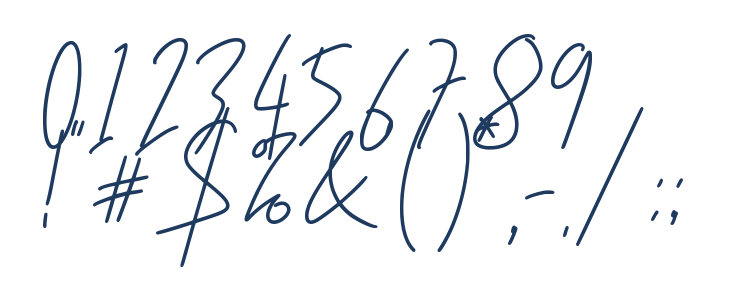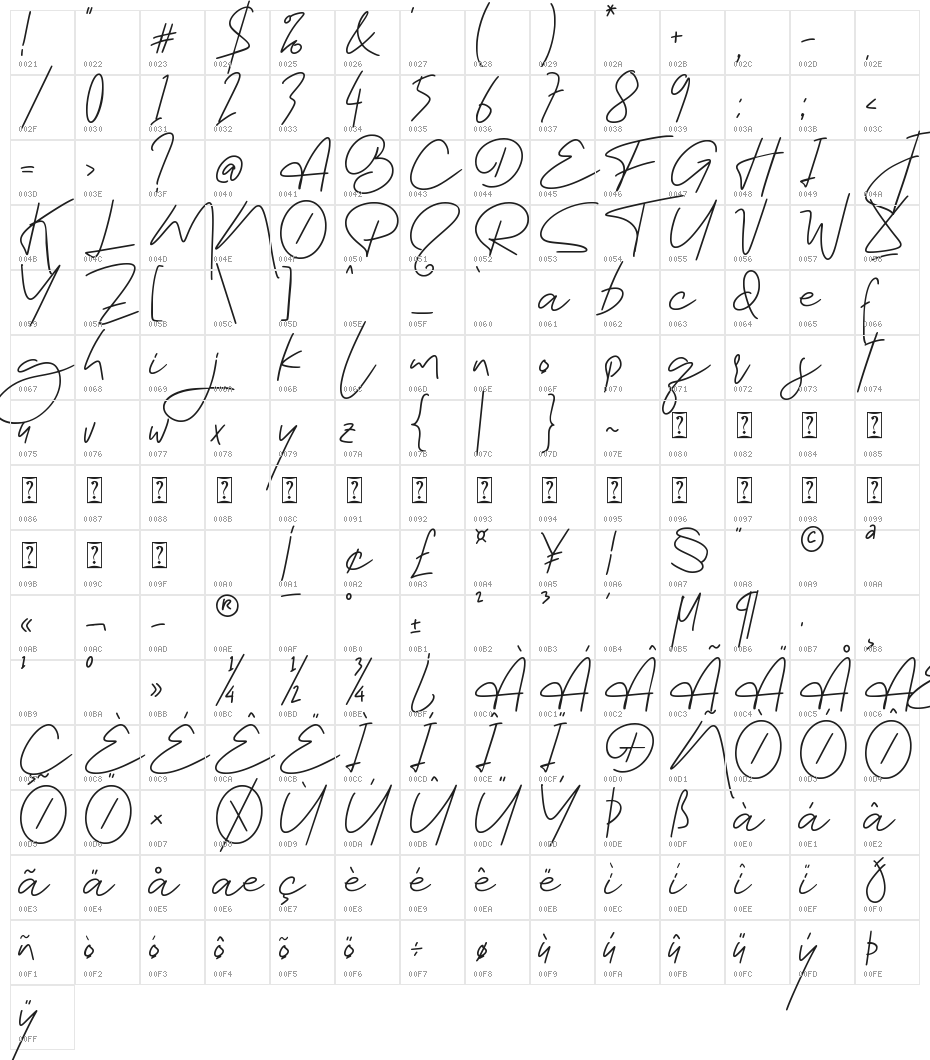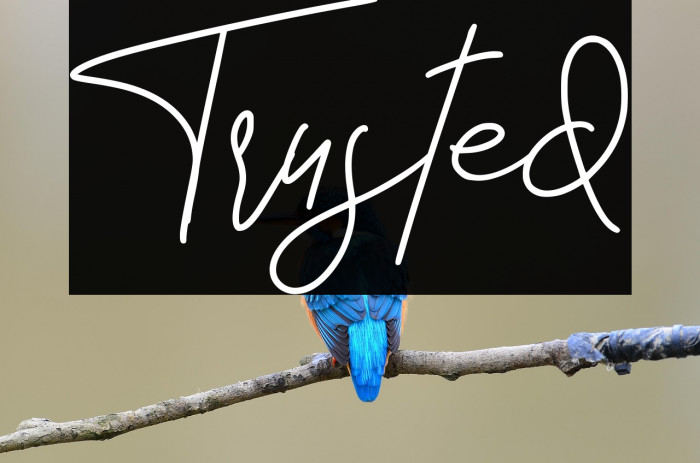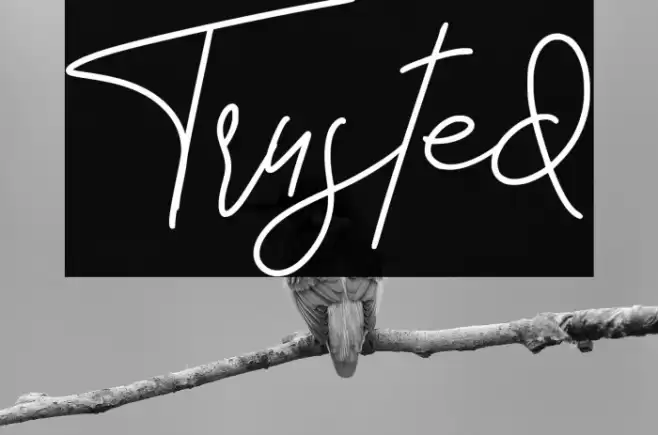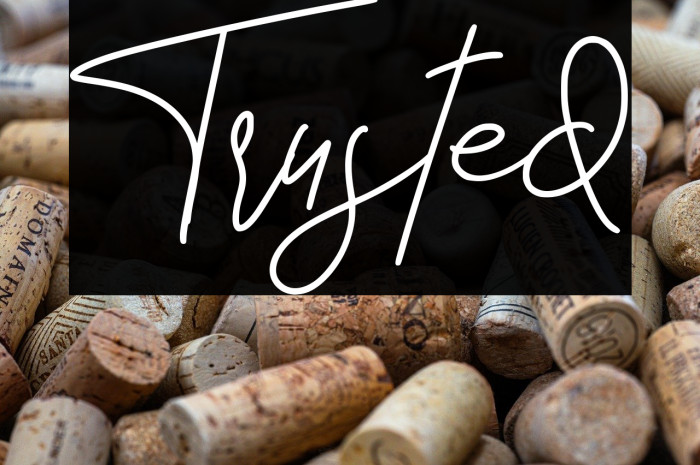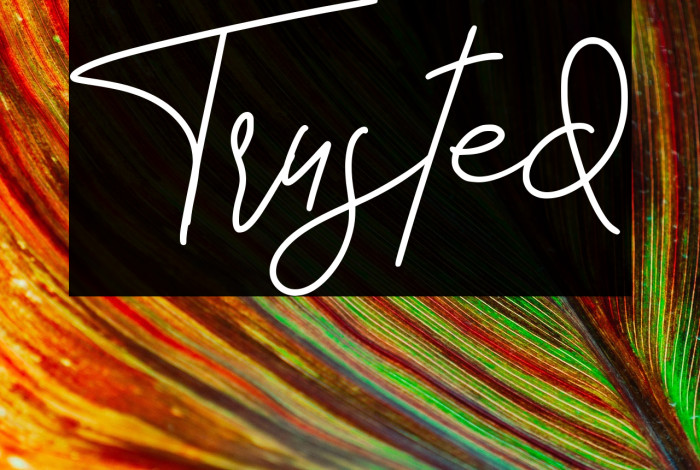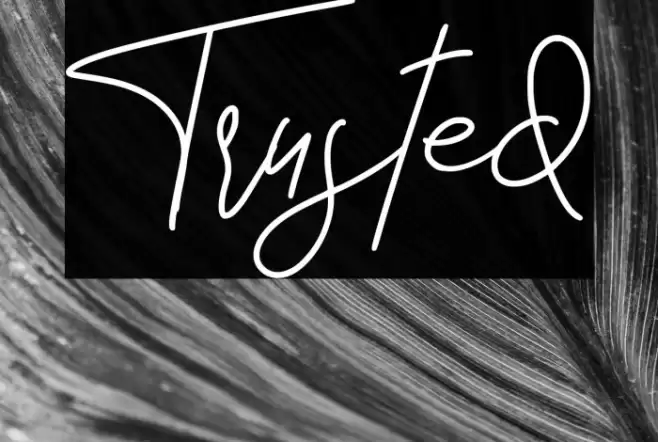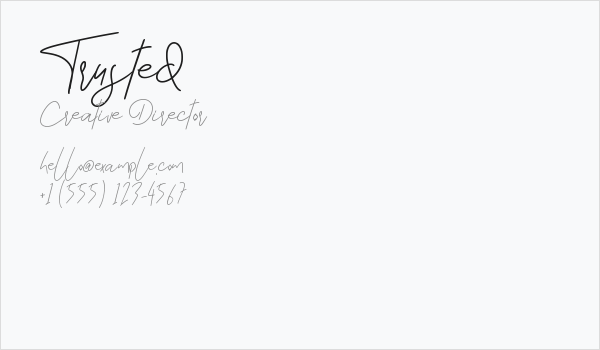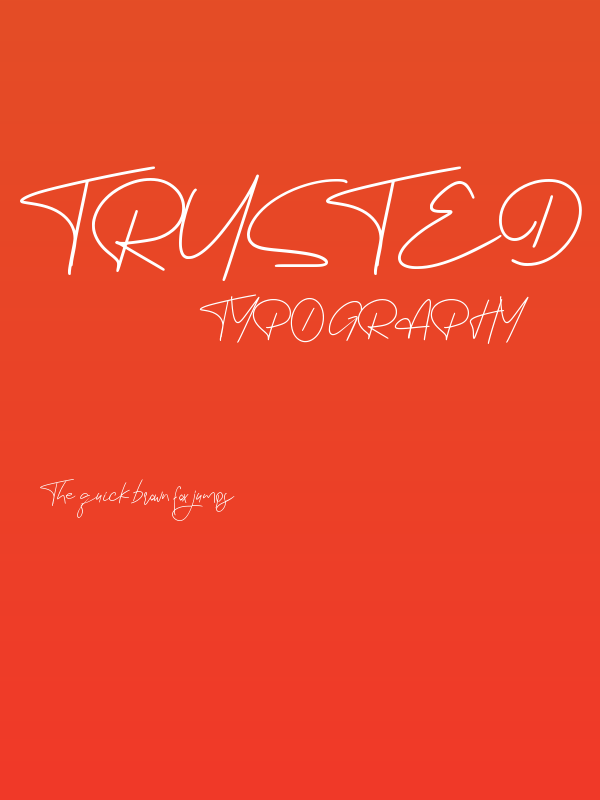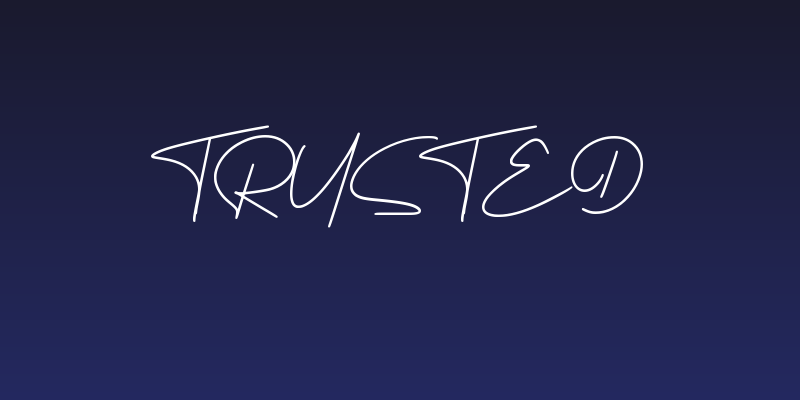
Trusted Font
Trusted Description
This font features a dynamic and expressive handwritten style, characterized by its fluid and continuous strokes. The uppercase letters are bold and slightly slanted, giving a sense of movement and energy. The lowercase letters maintain a consistent flow, with some letters extending below the baseline, adding to the font's casual and artistic appeal. The numbers are uniquely styled, maintaining the same energetic flow as the letters. Special characters are creatively integrated, matching the overall aesthetic. This font's playful yet sophisticated design makes it suitable for creative projects.